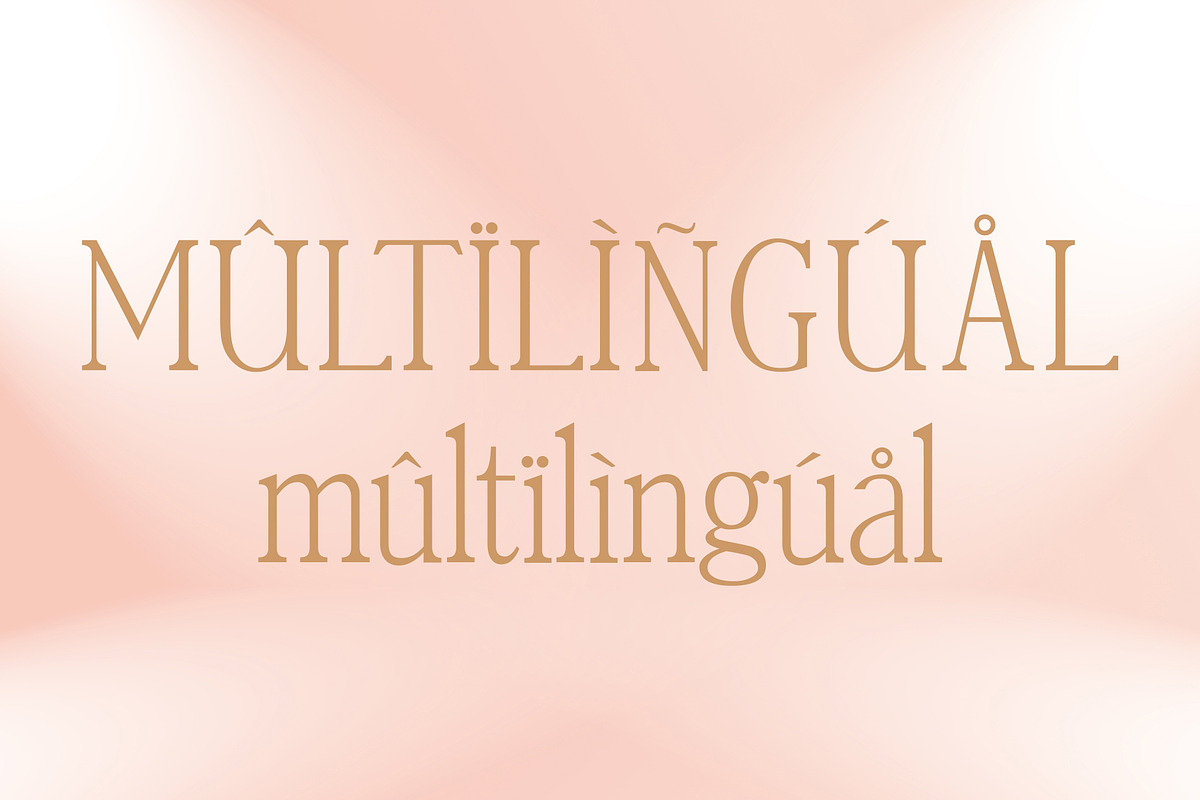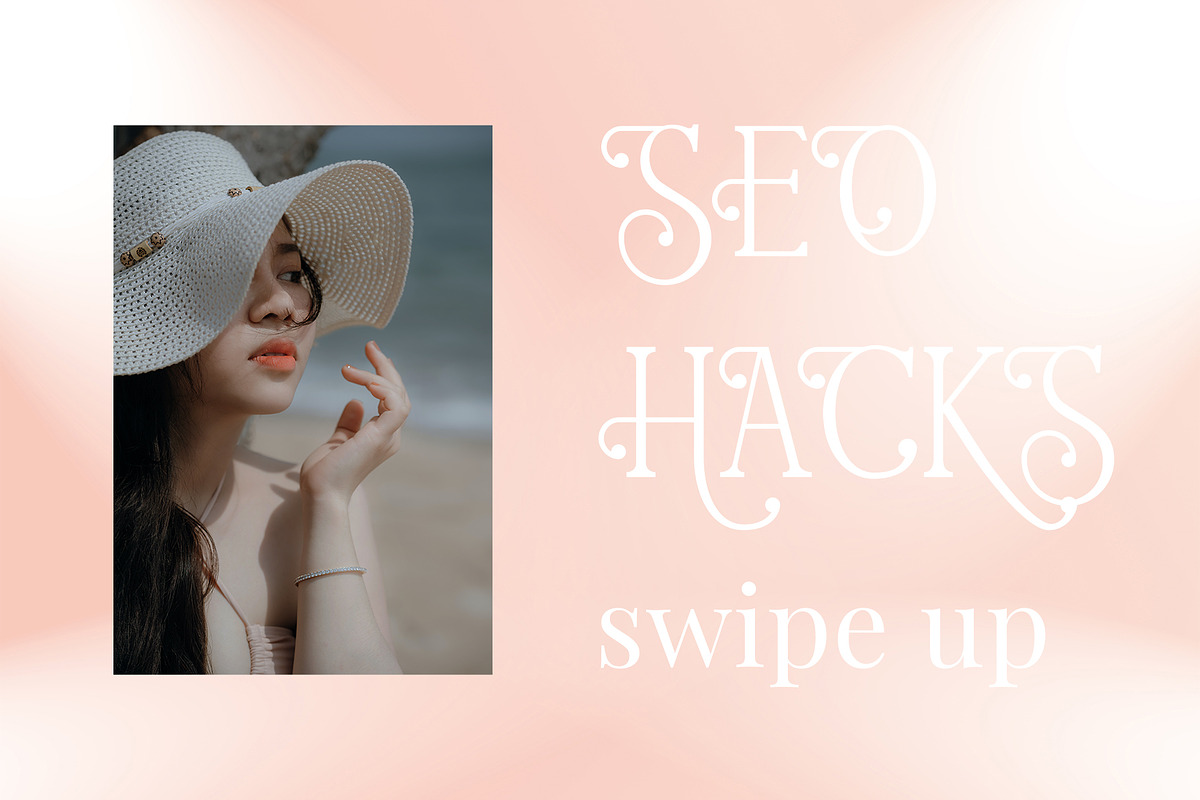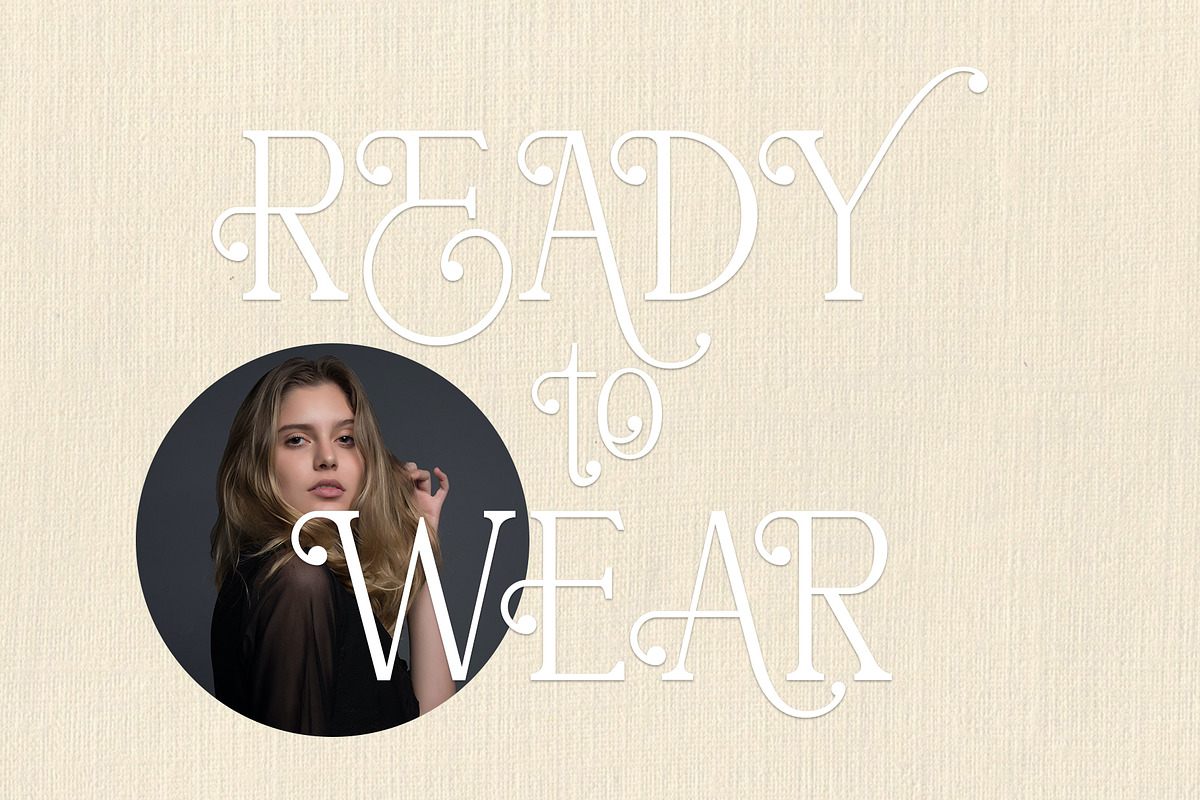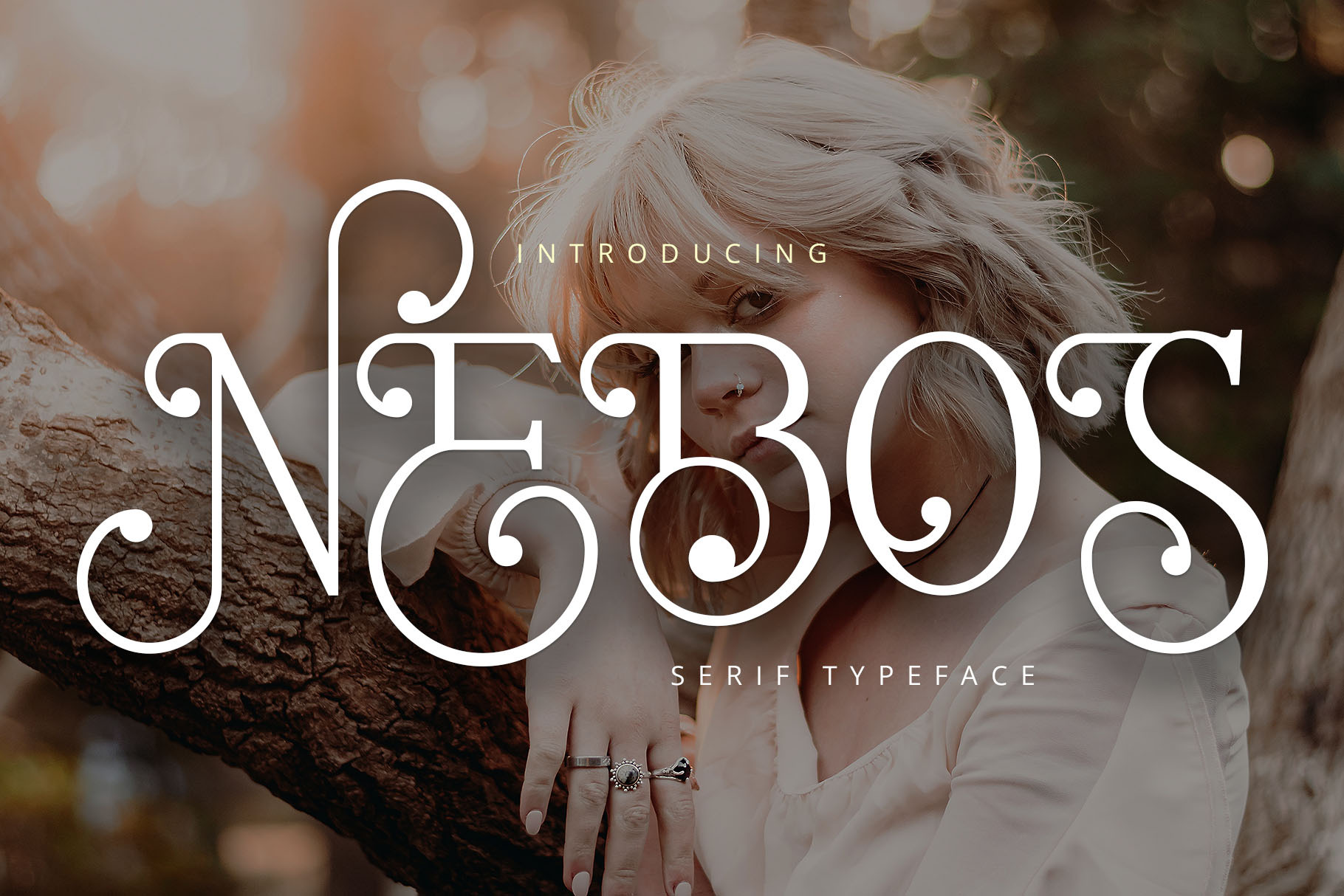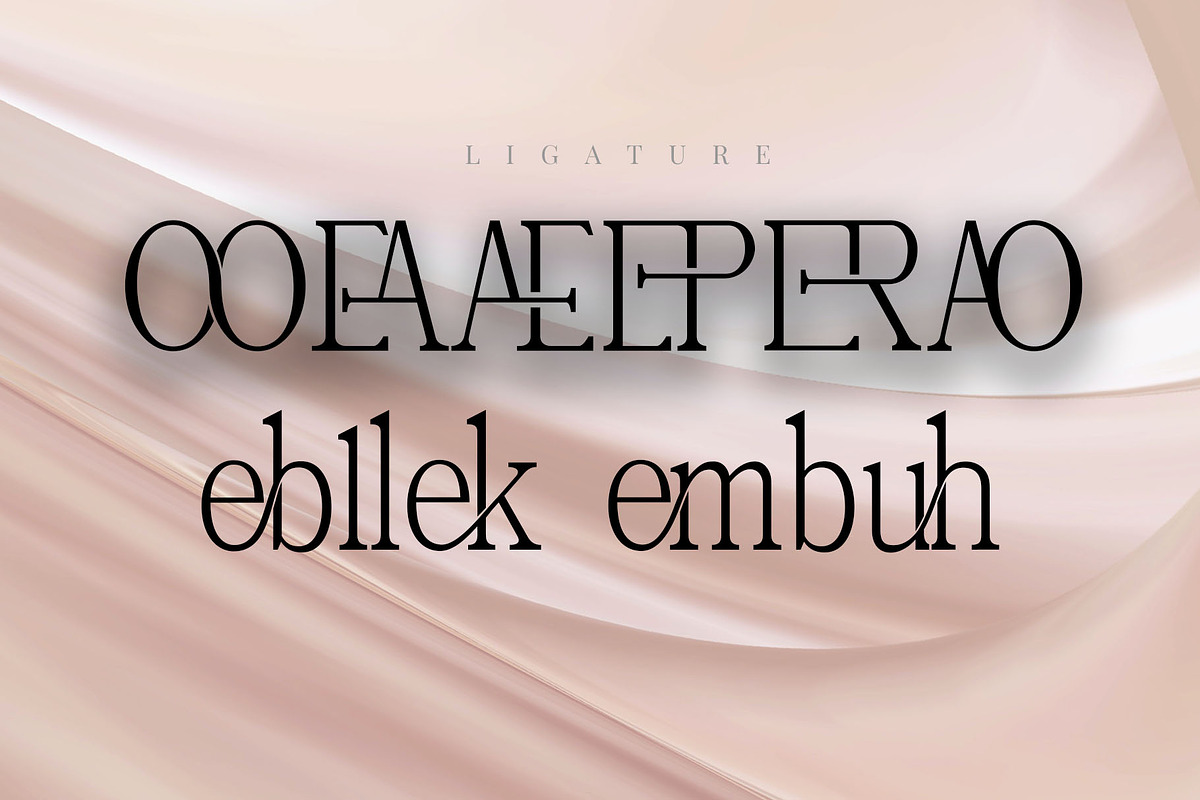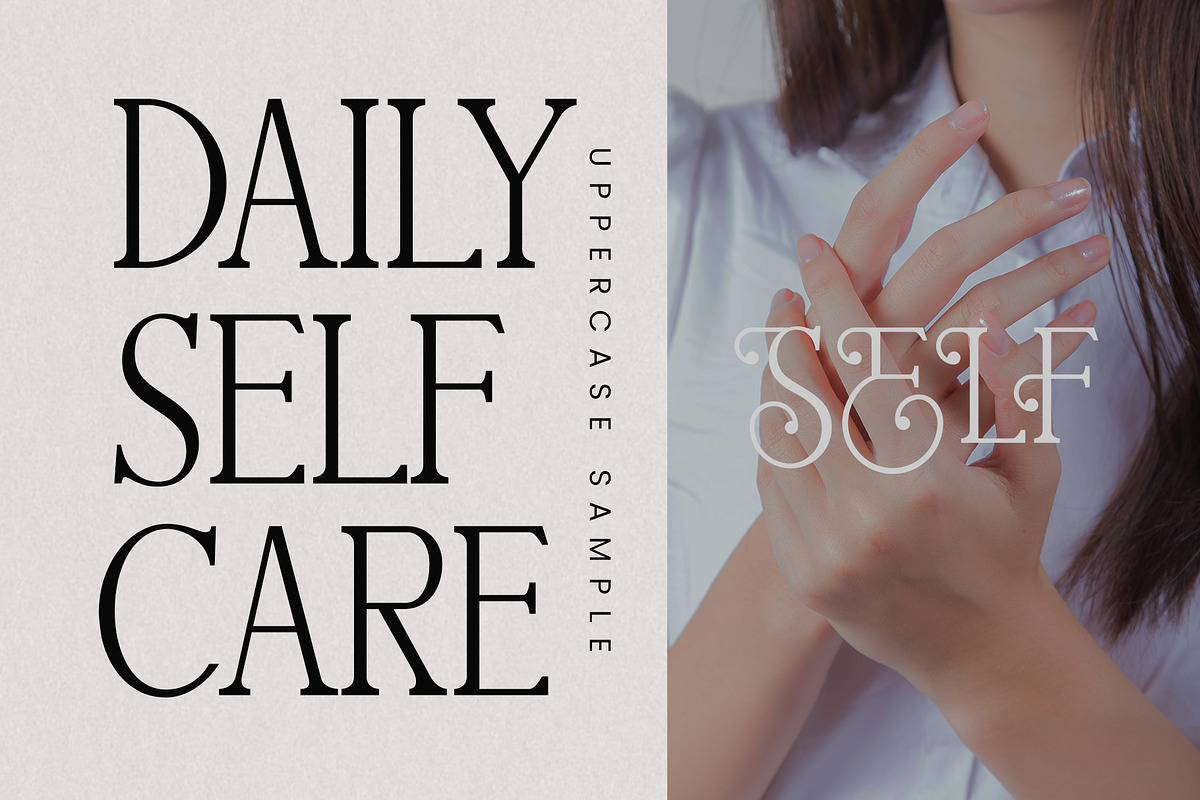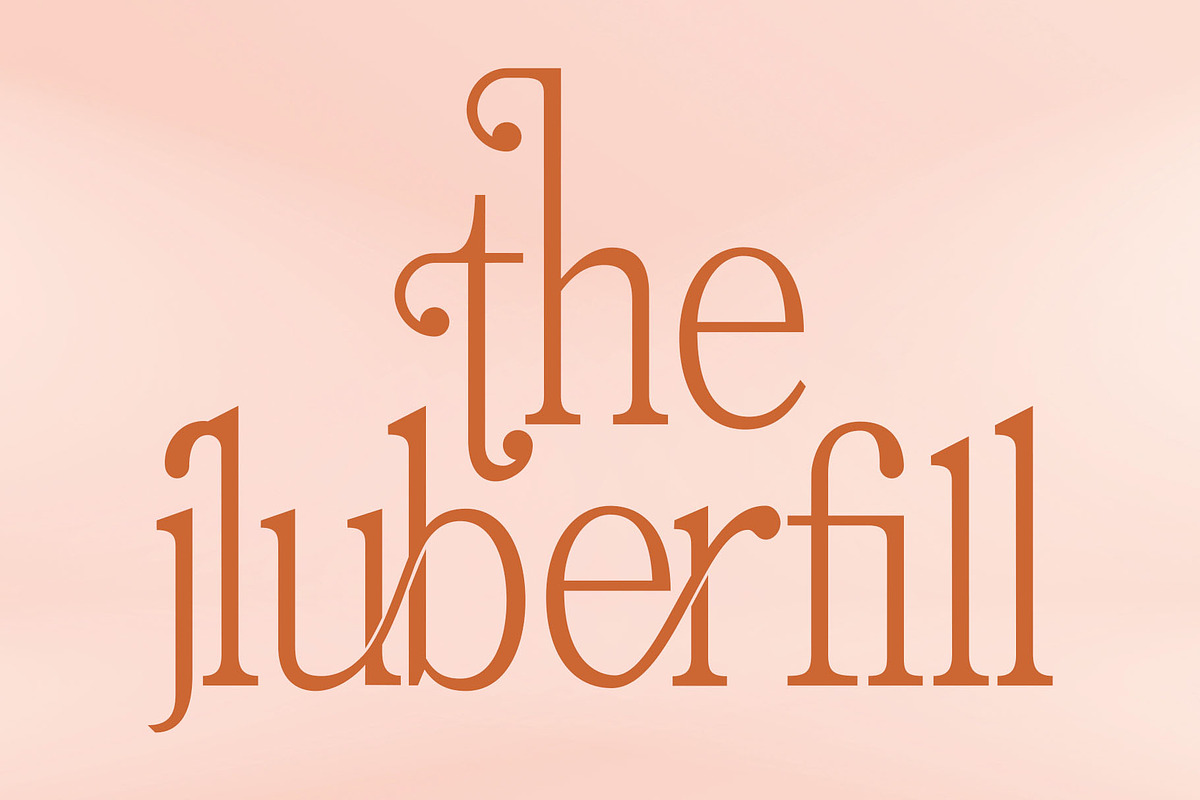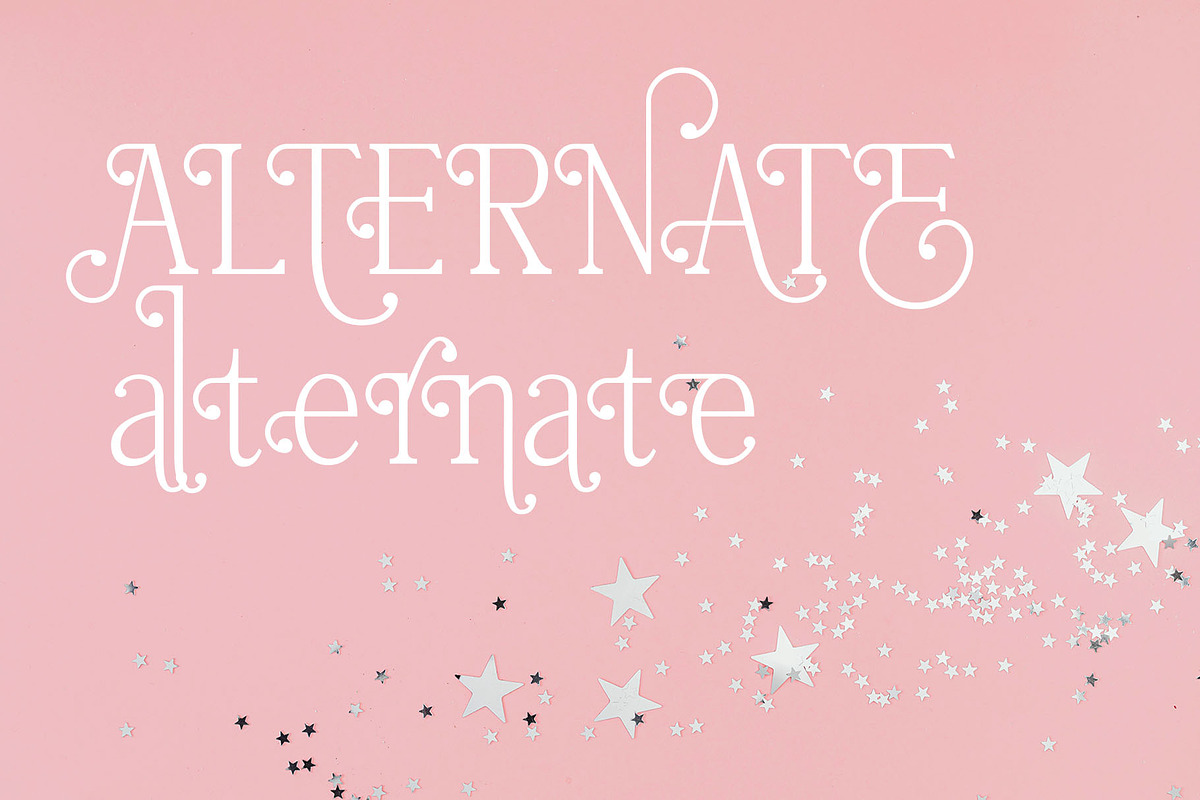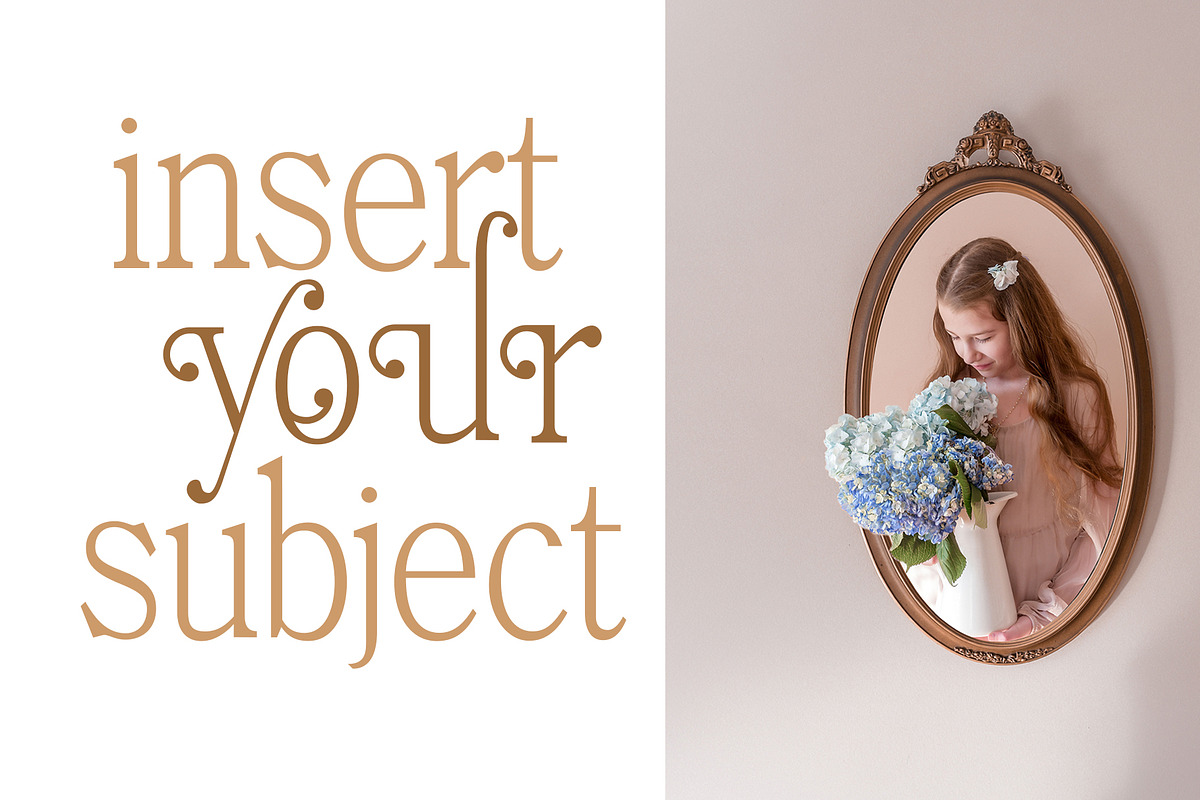
Nebos - Elegant Serif Typeface
Introducing 'Nebos' Font:
The Nebos font serves as an extension of the standard serif font. While the standard letters in Nebos are already well-suited for various types of writing, Nebos Fonts takes it a step further by incorporating numerous variations in the form of ligatures and unique, modern letter alternatives. This is designed to cater to diverse design requirements where text is utilized. Moreover, this font is PUA encoded, ensuring seamless access to a plethora of amazing glyphs and ligatures, providing enhanced creative possibilities for your designs.
Ideal for:
- Magazines
- Beauty and Fashion
- Elegant Creations
- Advertising Campaigns
- Social Media Designs
- Ready for Creative Expression
- Immaculately Crafted Letters